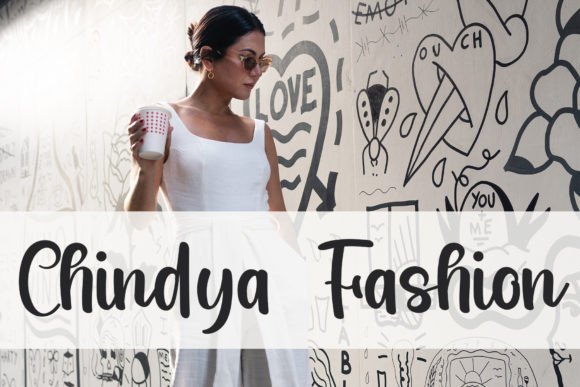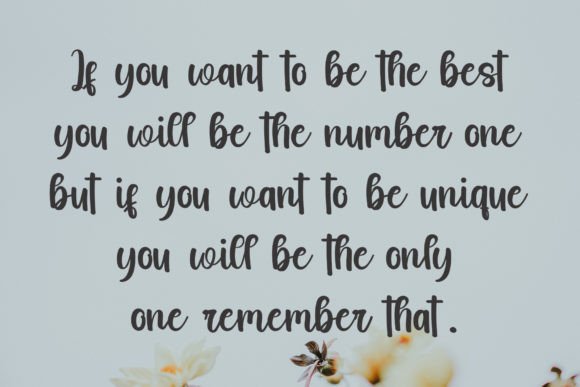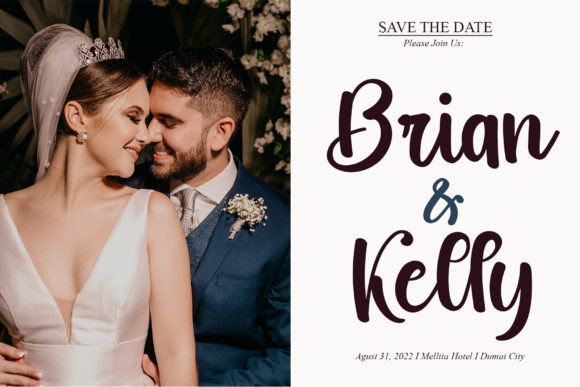
**Jelly: A Magical Handwritten Font for Elegance**
Jelly is a truly magical handwritten font that has been meticulously crafted to add a touch of elegance to your designs. Whether you’re searching for fonts to enhance your Instagram posts or calligraphy scripts for creative DIY projects, Jelly has the power to transform any idea into a genuine work of art.
The charm of Jelly lies in its captivating and magical handwritten characters. Each letter is designed to exude a sense of enchantment and authenticity. Whether you’re crafting social media posts or embarking on DIY creative endeavors, Jelly adds a touch of elegance that elevates your work to the next level.
This font’s versatility knows no bounds. It can be used to create stunning designs that leave a lasting impression, infuse sophistication into branding materials, or add a touch of magic to your artistic projects. Its elegant and magical appearance ensures your designs are captivating and visually appealing.
In summary, Jelly is more than just a font; it’s a source of enchantment and elegance that enhances your design projects. Its magical handwritten letters make it the perfect choice for infusing sophistication and artistry into your work. With Jelly, your creative ideas will shine with a touch of magic and elegance. Choose Jelly, and let your designs captivate with its magical and captivating presence.